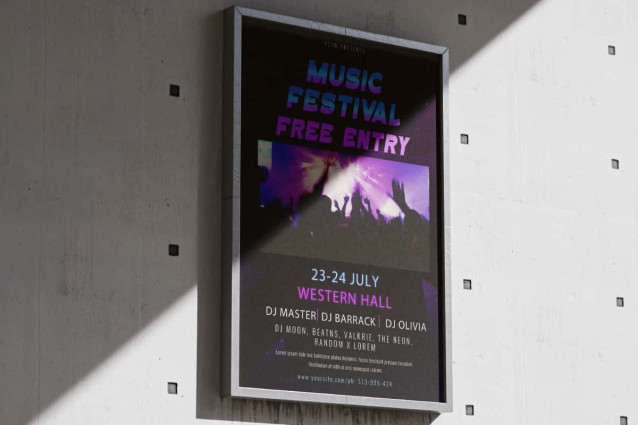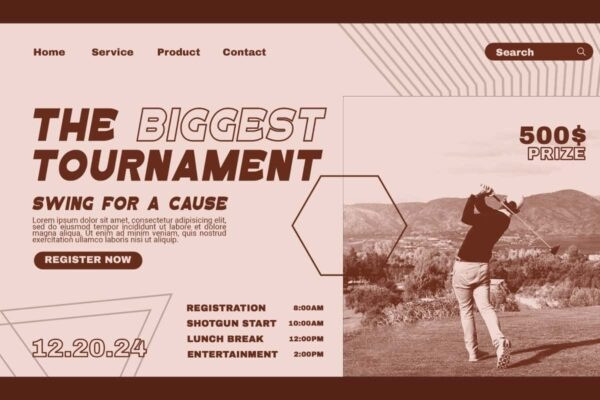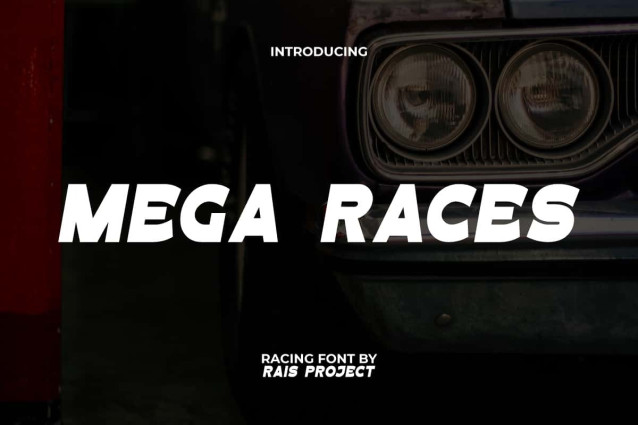
Mega Races Font
Mega Races Font is a bold racing font to make your designs standout, by RaisProject. This font has a unique casual style that can make the design look more special. It will be great for custom design, poster, label, signage, stationery, product packaging, quotes, brand image, advertisement, invitation, marketing material, website page, and more!
Mega Races Font includes a full set of ALL CAPS for Uppercase and Lowercase Letters, Numerals, and large range of Punctuation. This cool font will be suitable for various industries, such as sports, automotive, fashion, game, barber shop, cafe, event or festival, photography, printing, publishing, etc.